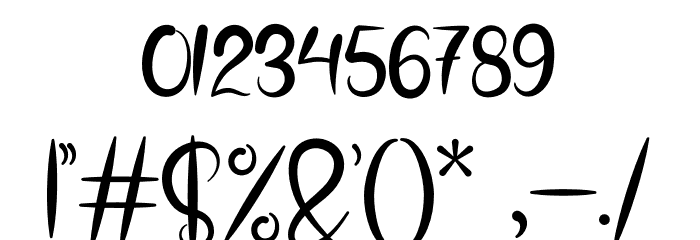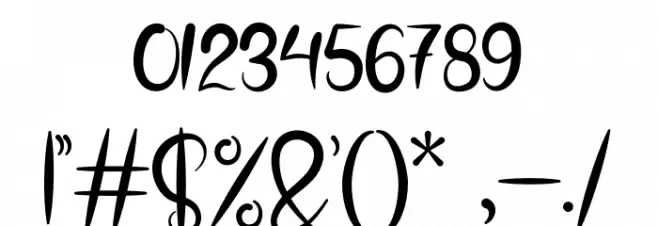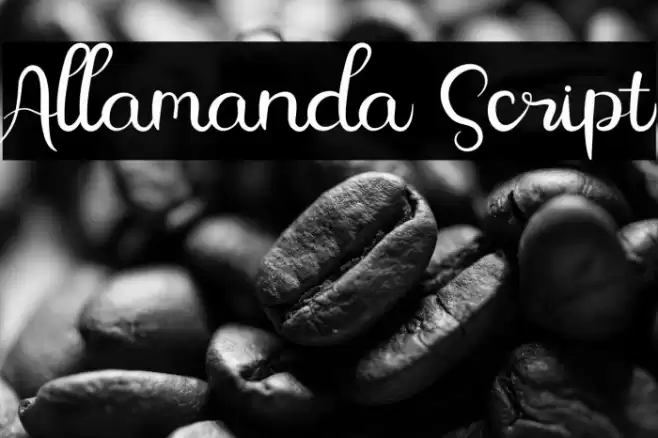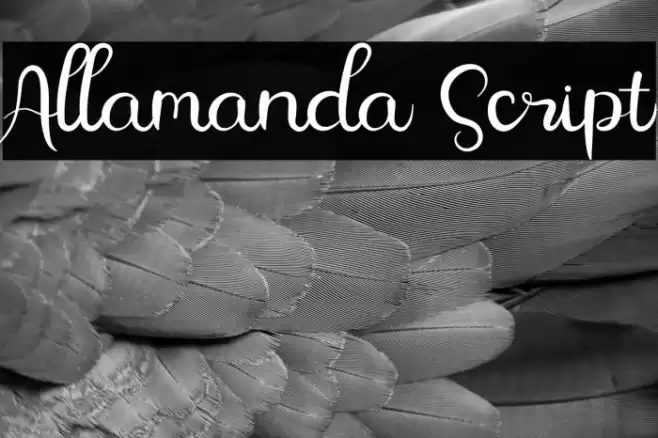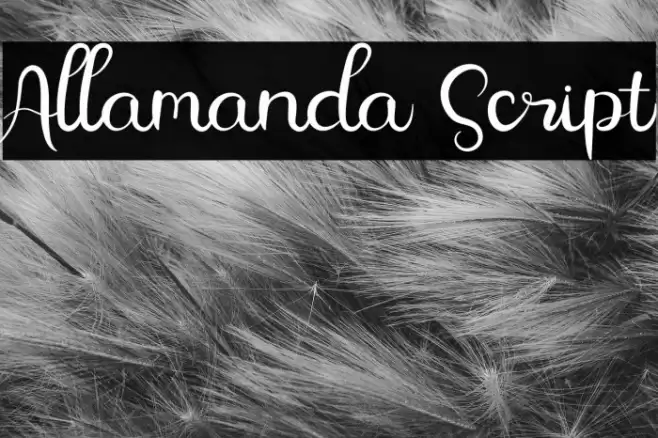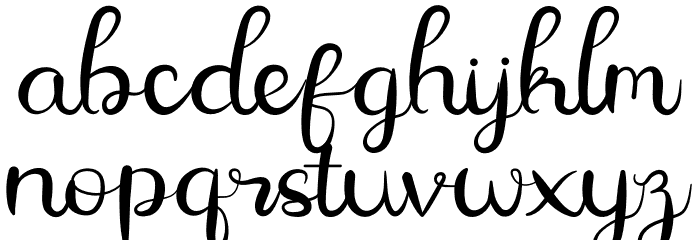
Allamanda Script Font
Allamanda Script Description
This font exudes a charming and elegant script style, characterized by its flowing, cursive letterforms. The uppercase letters are gracefully designed with sweeping curves and loops, giving a sense of movement and fluidity. The lowercase letters maintain a consistent style, with smooth connections between each character, enhancing the font's readability while preserving its decorative appeal. The numerals are distinct and maintain the script's elegance, ensuring they complement the overall aesthetic. Special characters are thoughtfully integrated, maintaining the font's cohesive look. This script font is perfect for adding a touch of sophistication and style to any design project.
| Overall Style | Elegant, Decorative |
| Use Case | Logos, Invitations, Decorative text |
| Proposed Projects | Ideal for wedding invitations, greeting cards, branding, and elegant packaging designs. |